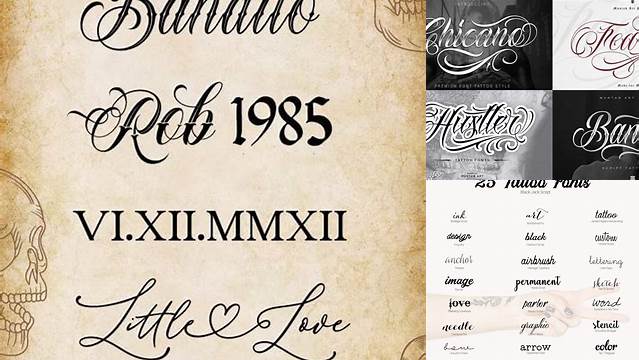
Thin Line Tattoo Fonts: Generator & Choosing Tips
Are you looking to get a thin line tattoo? Thin line tattoos are super popular right now, known for their delicate and minimalist look. But choosing the right font is crucial to nailing this style. This guide will walk you through everything you need to know about thin line tattoo fonts and even introduce you to a fantastic thin line tattoo fonts generator to help you find the perfect fit for your skin.
What are Thin Line Tattoos?
Before we dive into fonts, let's talk about what thin line tattoos actually are. Thin line tattoos, guys, are all about subtlety and elegance. They use very fine lines to create intricate designs, lettering, or symbols. The appeal lies in their understated beauty; they're not loud or flashy, but rather refined and sophisticated. Think delicate floral patterns, minimalist geometric shapes, or elegant script lettering. These tattoos often have a modern and airy feel, making them a favorite among those who appreciate clean aesthetics. The key to a successful thin line tattoo is precision and the right font choice, especially when incorporating text. Because of the fineness of the lines, the font needs to be clear and legible, even as the tattoo ages and the ink settles slightly. This is why understanding font characteristics and how they translate into tattoo art is so important. When considering a thin line tattoo, think about the design's longevity and how well the chosen elements will hold up over time. Opting for simpler designs and fonts with good spacing can ensure that your tattoo remains crisp and clear for years to come. Also, remember that the skill of the tattoo artist is paramount in achieving the desired delicate look. A steady hand and experience with this style are essential for the best outcome. So, doing your research and choosing an artist who specializes in thin line work is a crucial step in getting a thin line tattoo you'll love.
Why is Font Choice Important for Thin Line Tattoos?
The font you select for your thin line tattoo is super important for several reasons. First off, the readability of your tattoo depends heavily on the font. With thin lines, clarity is key. A font that looks great on a computer screen might turn into a blurry mess on your skin if the lines are too close together or too intricate. Imagine getting a beautiful quote tattooed only to have it look like a jumbled mess a few years down the line – no one wants that! That's why you need a font that maintains its shape and legibility over time. Secondly, the font sets the overall tone and style of your tattoo. A delicate script font conveys elegance and grace, while a bold sans-serif font might suggest a modern or minimalist vibe. The font is a crucial part of the message your tattoo sends, so it needs to align with your personal style and the meaning behind the tattoo. Think about what you want your tattoo to say about you – is it a personal mantra, a tribute to a loved one, or a symbol of your beliefs? The font should reflect that. Finally, the font choice impacts how well the tattoo ages. Thin line tattoos, while beautiful, are more prone to fading and blurring than tattoos with bolder lines. A well-chosen font will have enough spacing between the lines and characters to prevent them from bleeding together over time. This means opting for fonts that are designed for clarity and longevity, ensuring that your tattoo looks just as good in the future as it does on the day you get it. So, take your time, explore different options, and choose a font that not only looks great but also stands the test of time. It's an investment in your skin and your story!
Key Considerations When Choosing Thin Line Tattoo Fonts
Okay, so you're ready to pick a font for your thin line tattoo? Awesome! But before you jump into a thin line tattoo fonts generator, let's go over some key things to keep in mind. These considerations will help you narrow down your options and ensure you choose a font that looks fantastic and lasts. Firstly, readability is paramount. As we've already stressed, thin lines can blur over time, so you want a font that remains clear and easy to read. Avoid fonts with overly ornate details, very thin strokes, or tight kerning (the space between letters). These might look pretty initially, but they can quickly become illegible as the ink settles. Think about the long-term appearance of your tattoo and prioritize clarity above all else. Secondly, spacing is crucial for the longevity of thin line tattoos. The spaces between the letters and lines need to be wide enough to prevent the ink from bleeding together. Fonts with open counters (the enclosed space in letters like "o" or "a") and ample spacing will hold up much better over time. This is especially important for longer words or phrases, where the risk of blurring is higher. Consider how the font will look not just on paper, but also on your skin, which is a dynamic and living canvas. Thirdly, style matters! The font should complement the overall design and meaning of your tattoo. Are you going for a delicate and feminine look? A flowing script font might be perfect. Or perhaps you prefer a modern and minimalist aesthetic? A clean sans-serif font could be the way to go. Think about the message you want to convey and choose a font that aligns with that style. It's about creating a cohesive and visually appealing tattoo that reflects your personality and values. By considering these key factors, you'll be well-equipped to choose a thin line tattoo font that not only looks beautiful but also stands the test of time.
Popular Font Styles for Thin Line Tattoos
Now that we've covered the key considerations, let's explore some popular font styles that work exceptionally well for thin line tattoos. Knowing the different styles out there can help you refine your search and give you a better idea of what you're looking for. 1. Script Fonts: Script fonts, guys, are super popular for thin line tattoos because they exude elegance and flow. Think of graceful calligraphy or handwritten styles. These fonts are perfect for quotes, names, or any word you want to give a personal touch to. Some classic script fonts for thin lines include: * Sign Painter: This font has a vintage feel with smooth, flowing lines. * ** চ্যানেলের** This elegant script offers a timeless and sophisticated look. * Great Vibes: A beautiful, flowing script that adds a touch of romance. When choosing a script font, make sure the lines aren't too thin or the flourishes too elaborate, as these can blur over time. Look for scripts with a good balance between delicacy and legibility. 2. Sans-Serif Fonts: For a more modern and minimalist vibe, sans-serif fonts are an excellent choice. These fonts have clean lines and a simple, uncluttered appearance. They work well for geometric designs, single words, or short phrases. Some popular sans-serif options for thin line tattoos are: * Helvetica: A classic and versatile font with excellent readability. * Futura: A geometric sans-serif that gives a contemporary feel. * Montserrat: A clean and modern font with a slightly rounded appearance. When selecting a sans-serif font, make sure the spacing between the letters is adequate to prevent them from blending together. 3. Serif Fonts: Serif fonts, with their small decorative strokes at the ends of the letters, can add a touch of classic elegance to your thin line tattoo. However, it's crucial to choose a serif font carefully, as the serifs themselves can be quite delicate. Some well-suited serif fonts for thin lines include: * Times New Roman: A traditional font that can work well if used sparingly and in a larger size. * Garamond: A refined and elegant serif font with a timeless appeal. * Playfair Display: A stylish serif font with a modern twist. If you opt for a serif font, make sure the serifs are bold enough to hold their shape over time but not so bold that they overwhelm the design. 4. Monoline Fonts: Monoline fonts are characterized by consistent stroke thickness throughout the letters. This makes them a fantastic option for thin line tattoos because they offer excellent clarity and readability. Some popular monoline fonts include: * Gotham: A geometric monoline font that's clean and modern. * Bebas Neue: A tall and narrow sans-serif with a monoline aesthetic. * Raleway: A versatile font with a slightly condensed monoline style. Monoline fonts are particularly well-suited for simple, minimalist designs and can maintain their crispness even with thin lines. By exploring these different font styles, you can start to get a sense of what resonates with you and what will work best for your thin line tattoo.
Introducing the Thin Line Tattoo Fonts Generator
Okay, guys, now for the fun part! We've talked about why font choice is crucial and explored some popular styles. But how do you actually find the perfect font for your thin line tattoo? That's where a thin line tattoo fonts generator comes in super handy. These tools are designed to help you visualize different fonts with your chosen words or phrases, making the selection process a whole lot easier. A thin line tattoo fonts generator is essentially a web-based application that allows you to type in your desired text and preview it in a variety of fonts. Most generators offer a wide range of font styles, from scripts and serifs to sans-serifs and monoline options, giving you a ton of choices to explore. The best generators also allow you to adjust the size, spacing, and even the color of the text, so you can get a really accurate idea of how your tattoo will look on your skin. One of the biggest advantages of using a thin line tattoo fonts generator is that it saves you a ton of time and effort. Instead of manually searching through countless fonts and trying to imagine how they'll look as a tattoo, you can quickly preview different options in a realistic setting. This is especially helpful for thin line tattoos, where the nuances of the font can make a huge difference in the final result. Another great feature of many thin line tattoo fonts generator tools is the ability to upload your own design or stencil. This allows you to see how the font will integrate with your overall tattoo concept, ensuring that everything works together harmoniously. You can also experiment with different placements and sizes to find the perfect balance. When using a thin line tattoo fonts generator, it's a good idea to try out several different fonts, even ones you might not initially consider. You might be surprised at what you discover! Pay close attention to the legibility of the font, the spacing between the letters, and the overall aesthetic. Remember, the goal is to choose a font that not only looks beautiful but also holds up well over time. So, get ready to dive in and explore the world of tattoo fonts with a thin line tattoo fonts generator – it's a fantastic way to bring your tattoo vision to life!
How to Use a Thin Line Tattoo Fonts Generator Effectively
Using a thin line tattoo fonts generator is pretty straightforward, but there are some tips and tricks to help you get the most out of these tools. By following these guidelines, you'll be able to narrow down your choices and find the perfect font for your thin line tattoo with confidence. 1. Type in Your Text: The first step, of course, is to type in the word, phrase, or quote you want to get tattooed. Make sure to double-check the spelling and punctuation, as even a small error can have a big impact on the final result. This might seem obvious, but it's always good to be thorough! 2. Explore Different Font Categories: Most thin line tattoo fonts generator tools organize fonts into categories like script, sans-serif, serif, and more. Start by exploring these categories to get a feel for the different styles available. This can help you narrow down your preferences and identify fonts that resonate with your personal taste. Don't be afraid to venture outside of your comfort zone and try fonts you might not normally consider – you might just find a hidden gem! 3. Adjust the Size and Spacing: One of the key features of a good thin line tattoo fonts generator is the ability to adjust the size and spacing of the text. This is crucial for visualizing how the font will look on your skin. Experiment with different sizes to see how the font scales and whether it maintains its legibility at various sizes. Pay close attention to the spacing between the letters and lines, as this can significantly impact the overall appearance of the tattoo. Remember, thin line tattoos require adequate spacing to prevent blurring over time. 4. Consider Placement: Think about where you want to get your tattoo and how the font will fit in that area. A larger font might work well on a broad surface like your back or chest, while a smaller, more delicate font might be better suited for a wrist or ankle. Many thin line tattoo fonts generator tools allow you to upload an image of the area where you plan to get the tattoo, so you can visualize the font in context. This is a fantastic way to ensure that the font looks proportional and harmonious with your body. 5. Save and Compare Your Favorites: As you explore different fonts, save the ones you like best. Most thin line tattoo fonts generator tools have a feature that allows you to save your favorite fonts for later comparison. This makes it easy to review your options side-by-side and make a more informed decision. Don't just save the first few fonts that catch your eye – keep exploring and save a diverse range of options. 6. Consult with Your Tattoo Artist: Once you've narrowed down your choices, the next step is to consult with your tattoo artist. They can provide valuable feedback on the legibility of the font, how well it will hold up over time, and whether it's suitable for thin line work. Your tattoo artist can also offer suggestions for tweaks or adjustments that will enhance the final result. They're the experts, after all! By following these tips, you'll be able to use a thin line tattoo fonts generator effectively and find a font that you absolutely love for your thin line tattoo.
Choosing the right font for your thin line tattoo is a big decision, but with the help of a thin line tattoo fonts generator and a little careful consideration, you can find the perfect match. Remember to prioritize readability, spacing, and style, and don't be afraid to experiment with different options. Most importantly, work closely with your tattoo artist to ensure that your vision becomes a beautiful and lasting reality. Happy tattooing, guys!